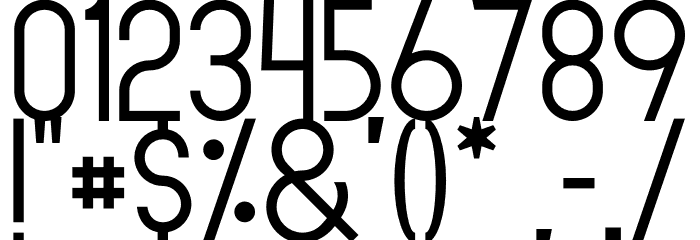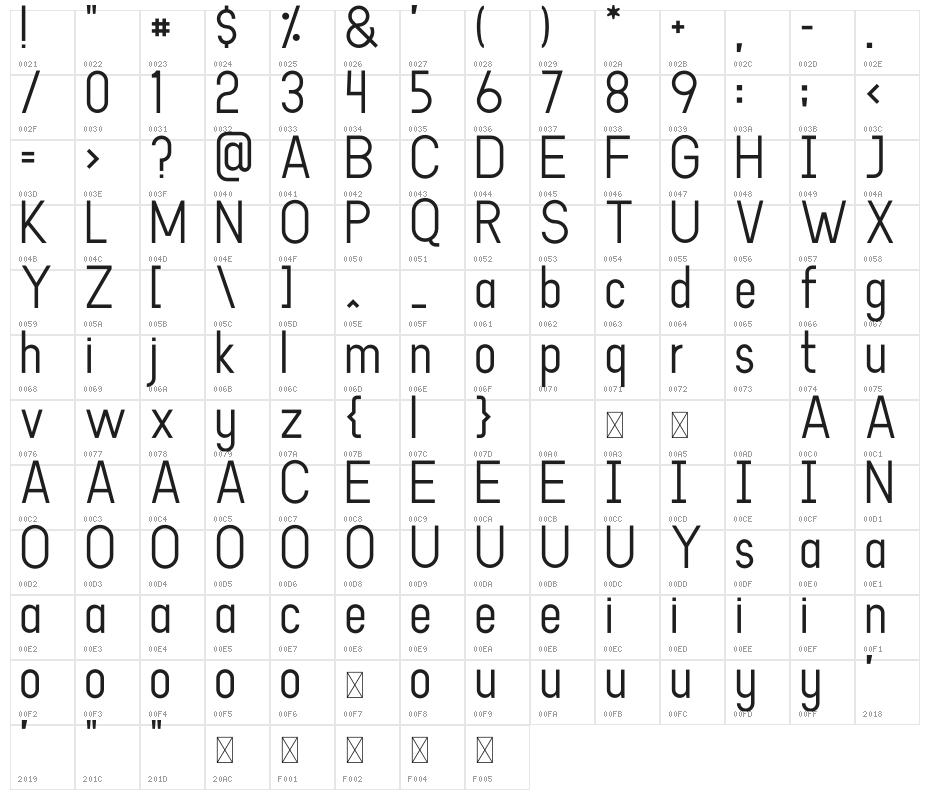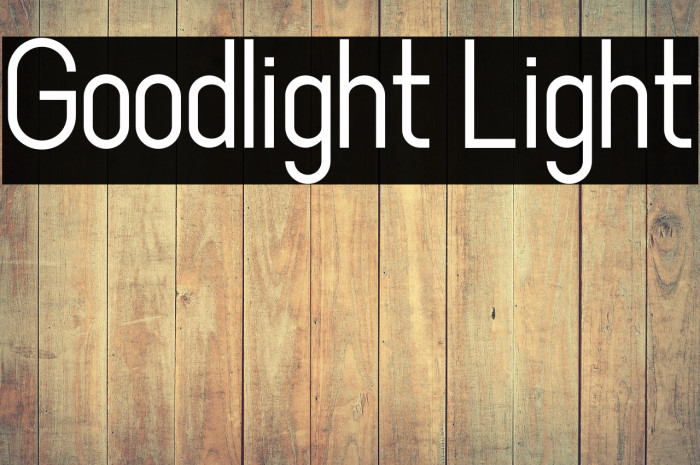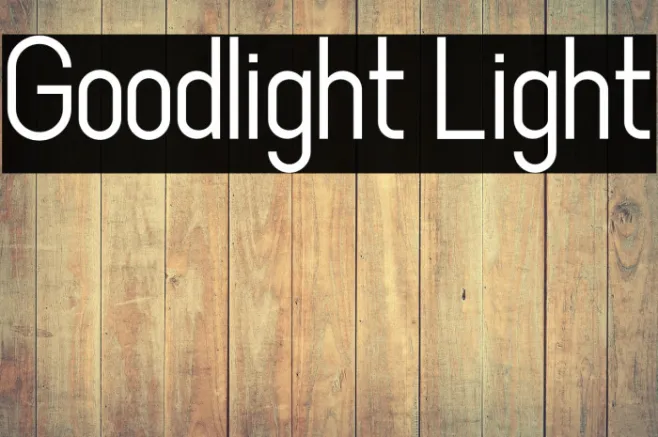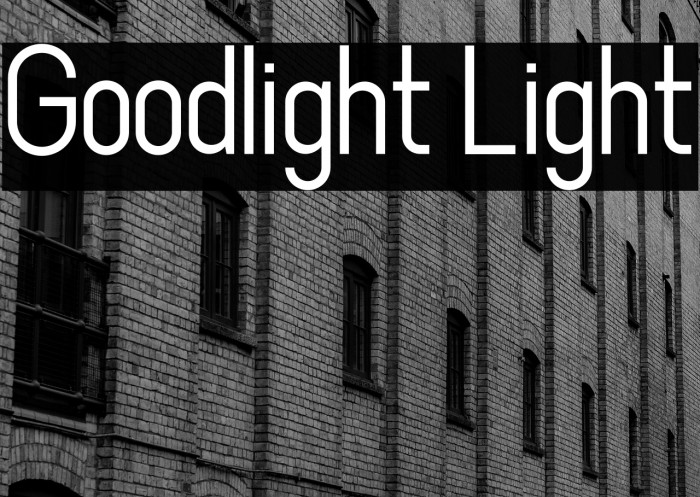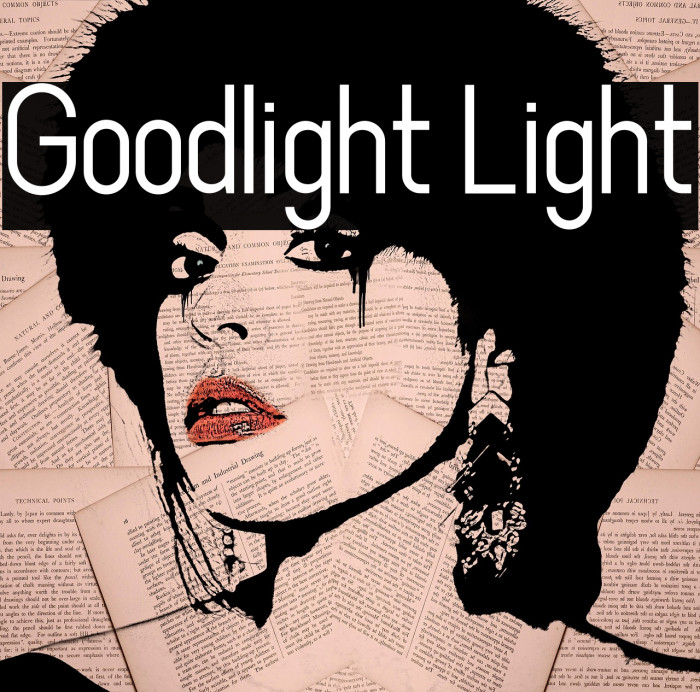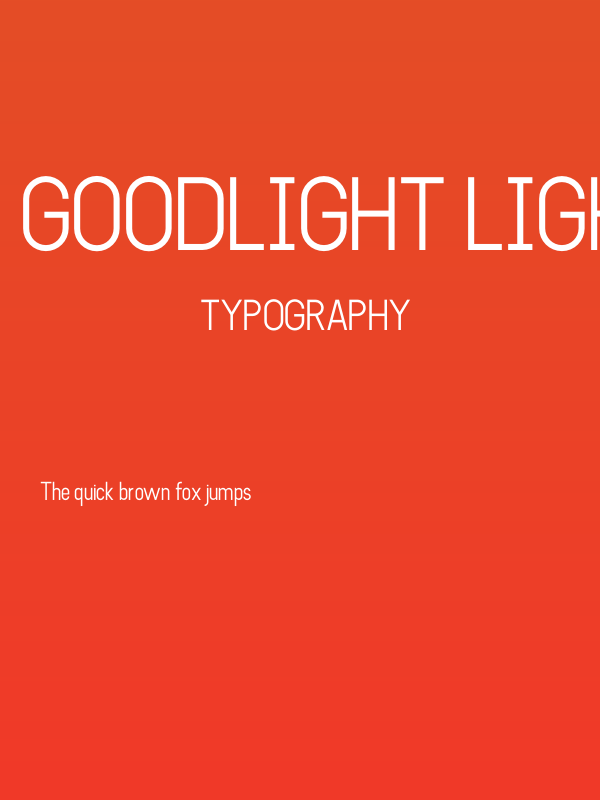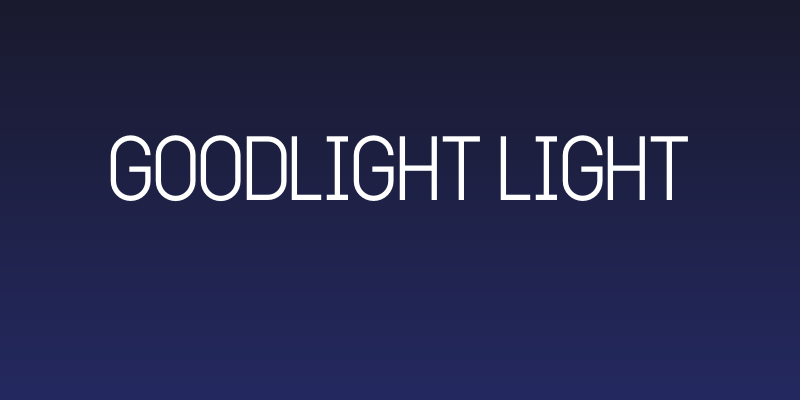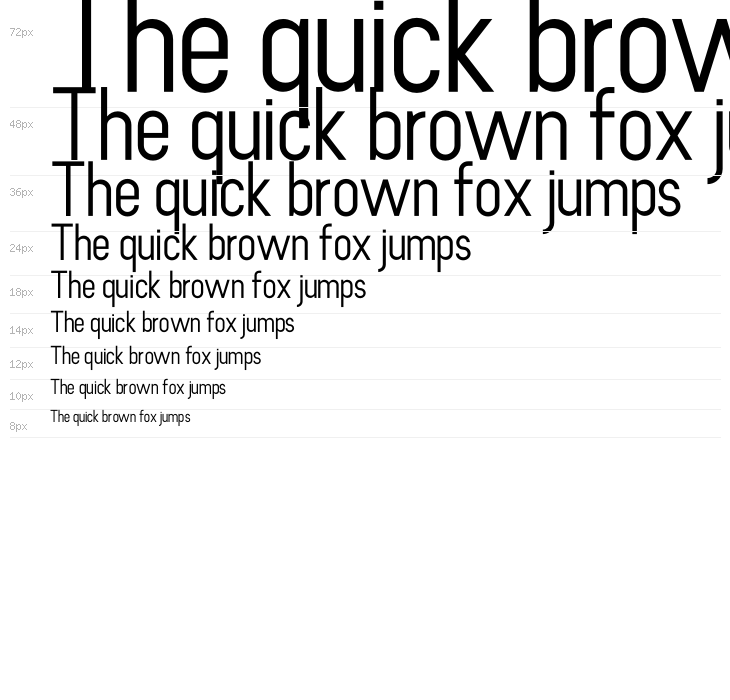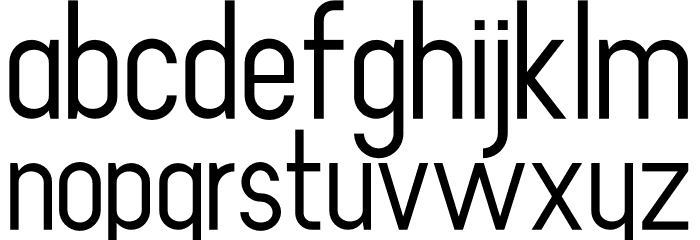
Goodlight Light Font
Goodlight Light Description
This font is a clean and modern sans-serif typeface characterized by its light weight and minimalistic design. The characters are tall and narrow, providing a sleek and contemporary appearance. The uppercase letters are uniform in height, while the lowercase letters maintain a consistent baseline with a slight variation in height for certain characters like 'b', 'd', and 'h'. The numerals are distinct and easy to read, making them suitable for various applications. Special characters are well-defined, maintaining the overall aesthetic of simplicity and clarity. The font's design is versatile, making it suitable for both digital and print media.